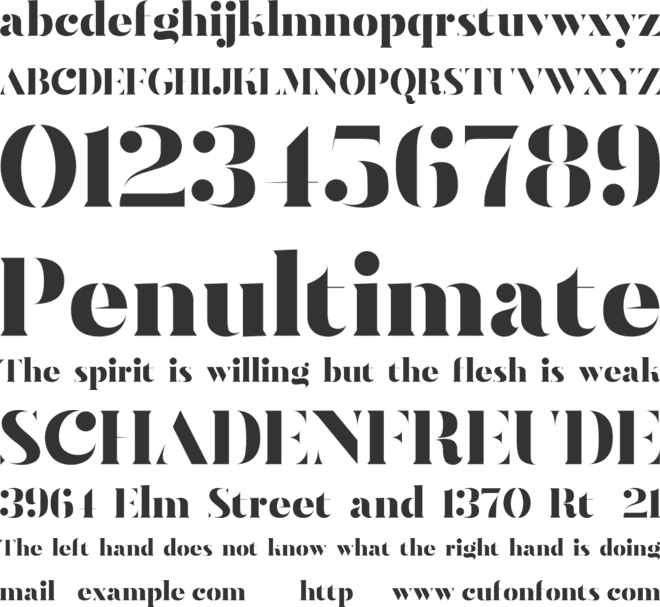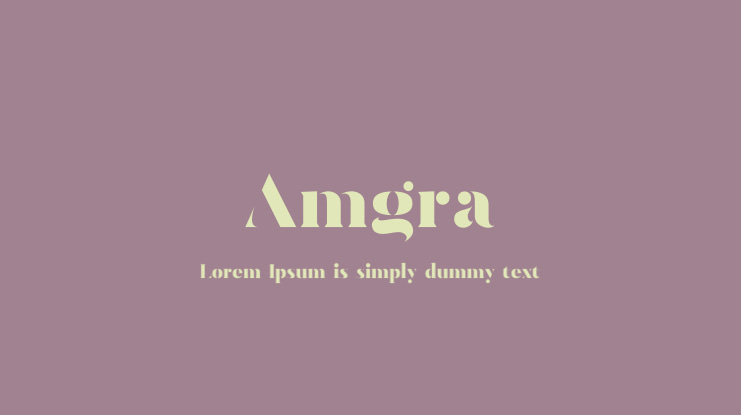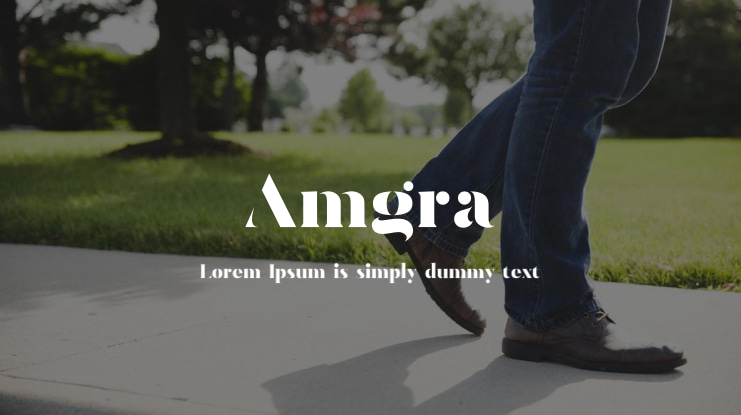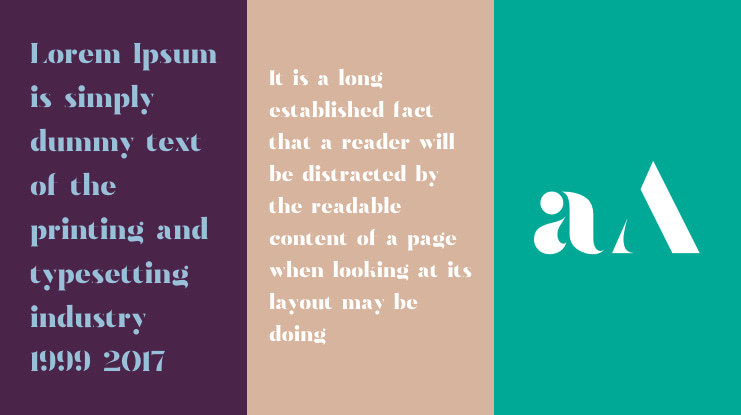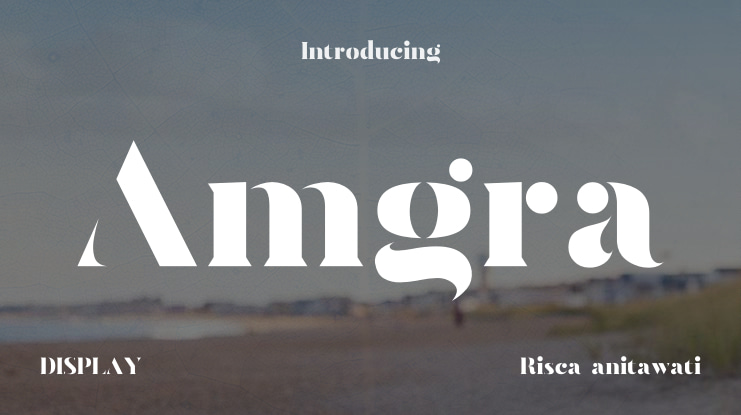
Amgra Font
Introducing Amgra: a modern and luxurious stencil font. This exquisite typeface features a variety of attractive alternates and ligatures.
Amgra is perfectly suited for application in logos, headlines, signage, and other formal forms such as invitations, labels, magazines, books, greeting/wedding cards, packaging, fashion, makeup, stationery, novels, or any advertising purposes. This product was created to help you enhance the beauty and uniqueness of your digital images.